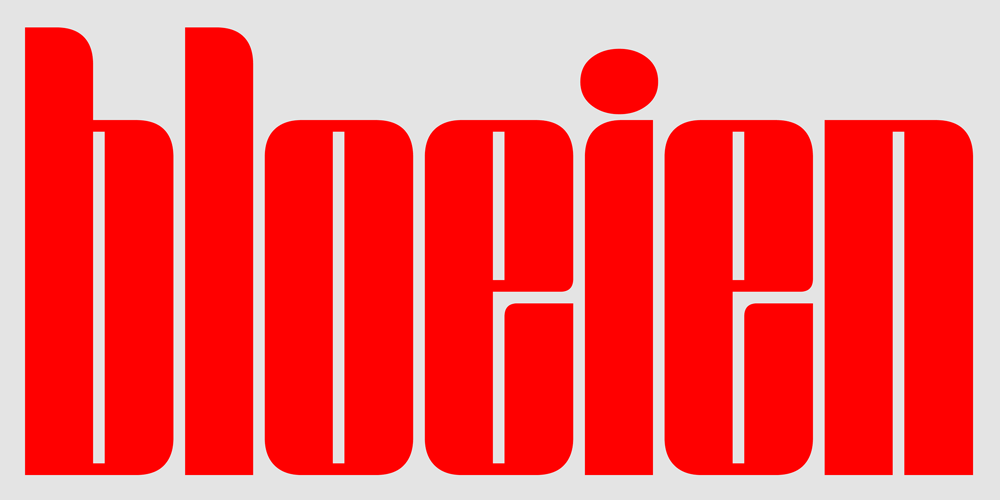
Bloeien Font Family was designed by Aidan Cooke and published by Aidan Cooke. Bloeien contains 1 styles and family package options. Bloeien is a super condensed variable typeface, consisting of 5 weights. With its subtle curves, consistently narrow counters and horizontal axis, this font is perfect to make a statement in editorial pieces, posters & headlines. Also, the variable feature allows complete flexibility and control when producing your designs.